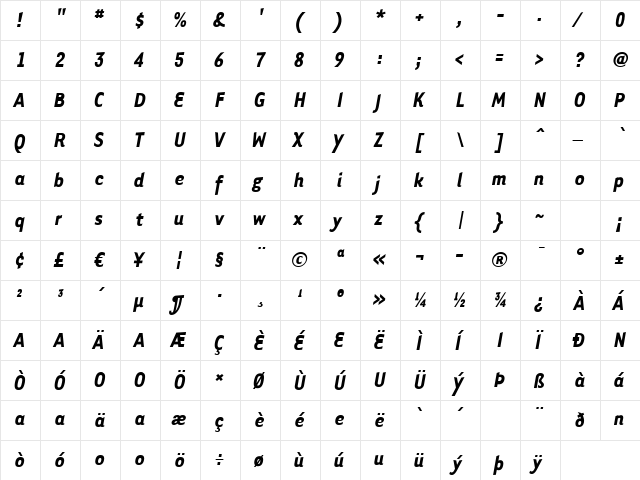
TarzanaNarrowBoldItalic Regular Font Preview
Design Context for TarzanaNarrowBoldItalic Typeface
TarzanaNarrowBoldItalic is a composed and adaptable typeface that performs quietly and consistently across a wide range of design contexts. Its italic angle brings a sense of urgency and motion to the letterforms. Its bold stroke weight gives it real presence on the page. Its narrow stance lets it pack a punch even in space-constrained designs.
Pro Tip: Use TarzanaNarrowBoldItalic for emphasis, pull quotes, and subheadings where its slanted energy can add rhythm to the layout.